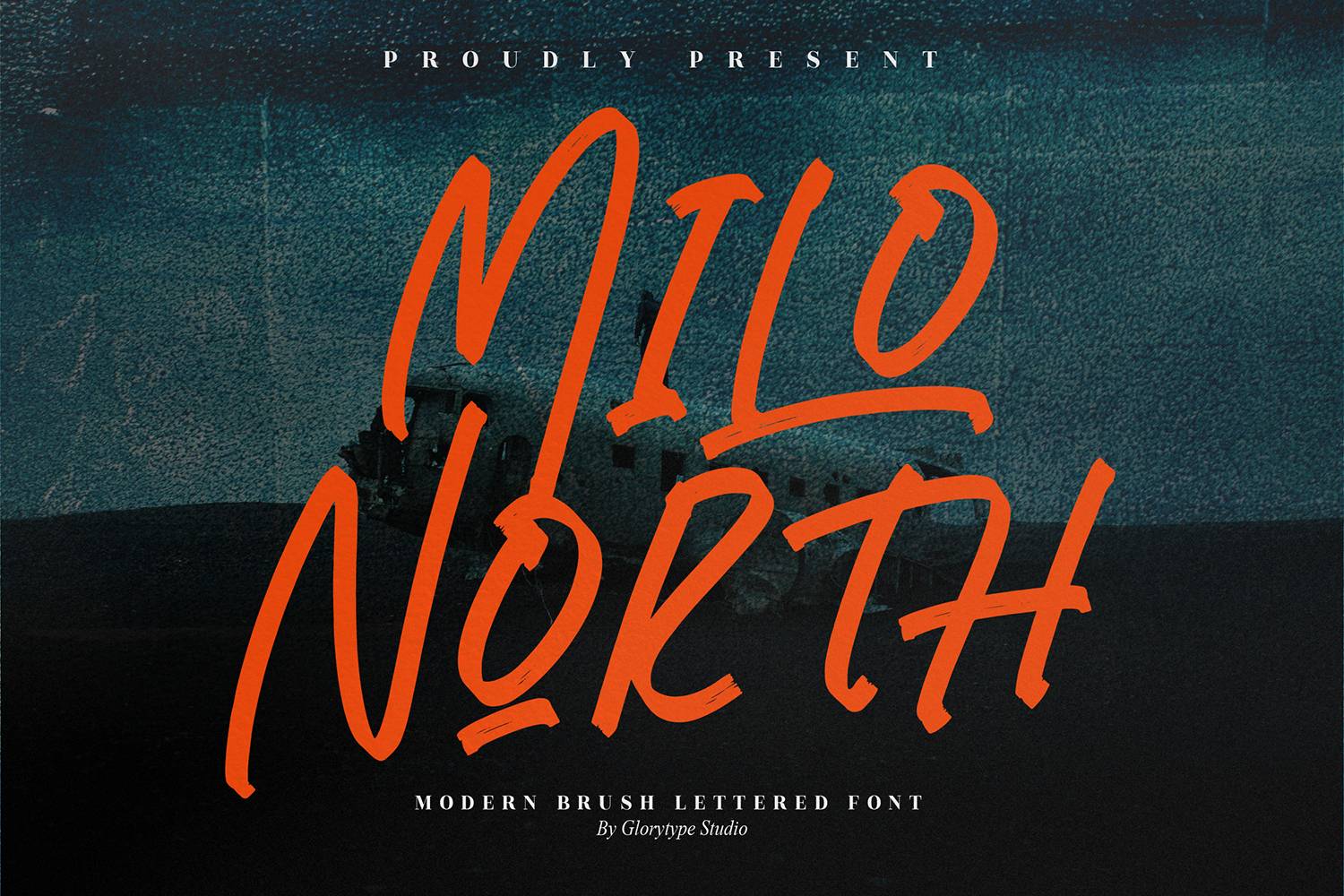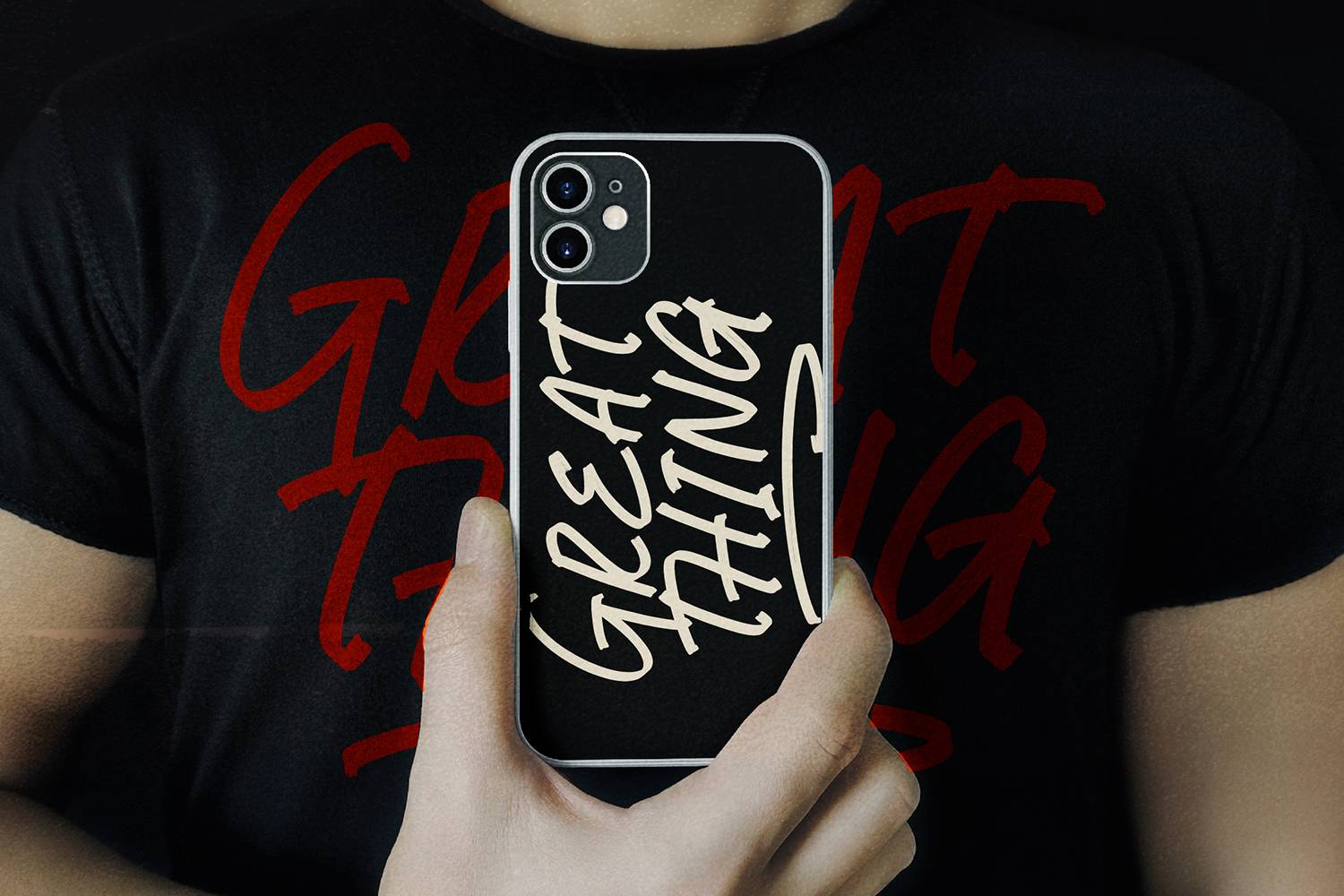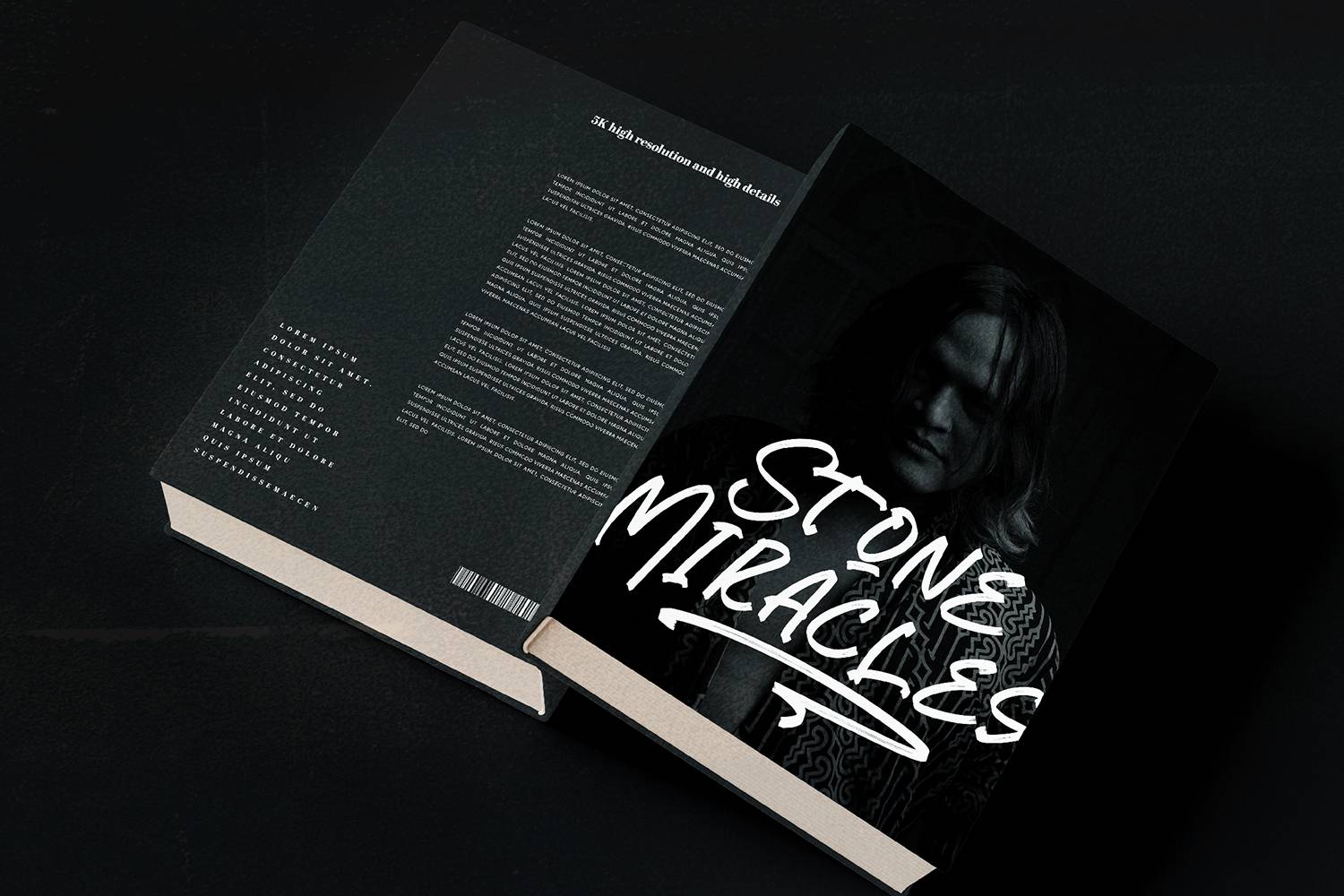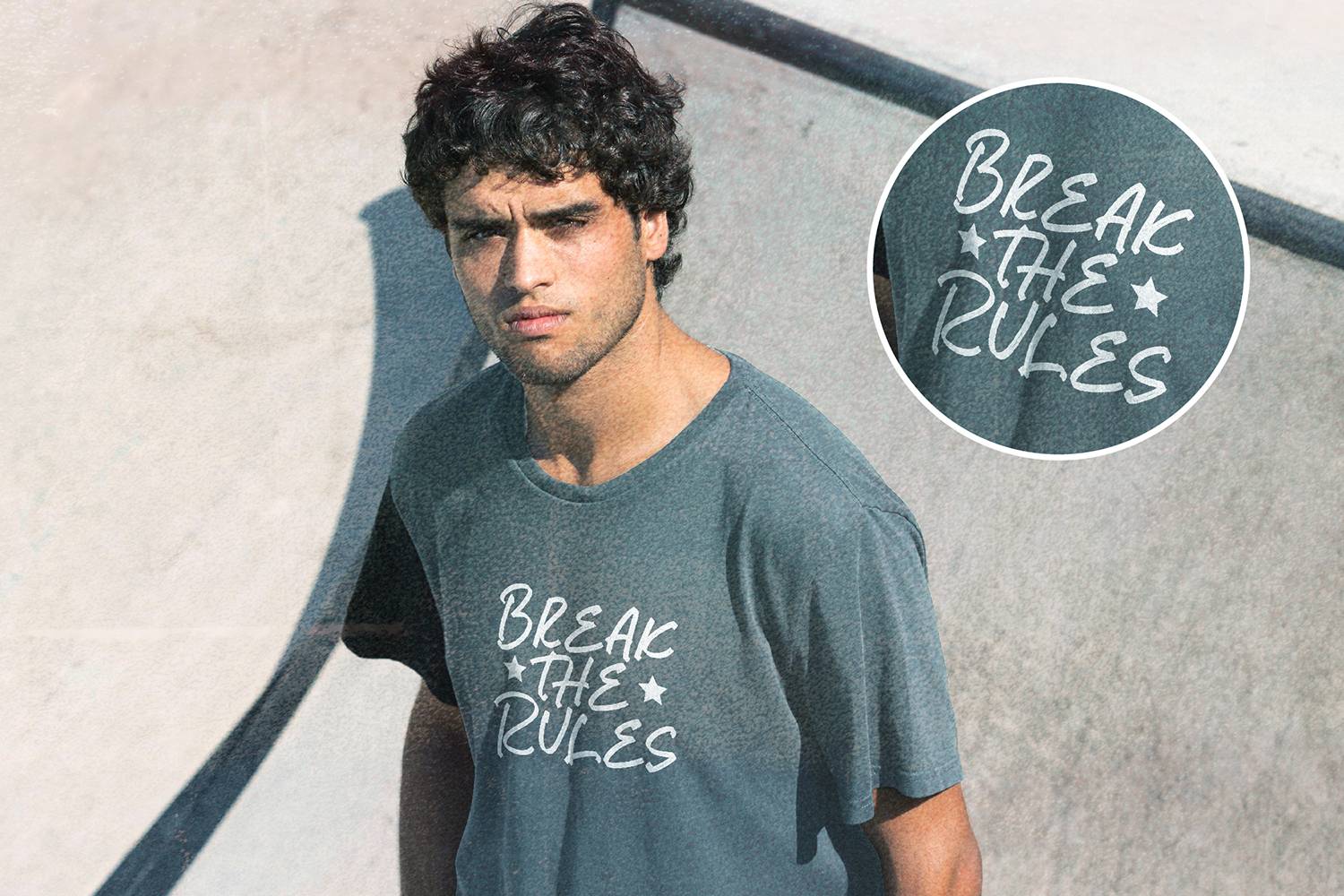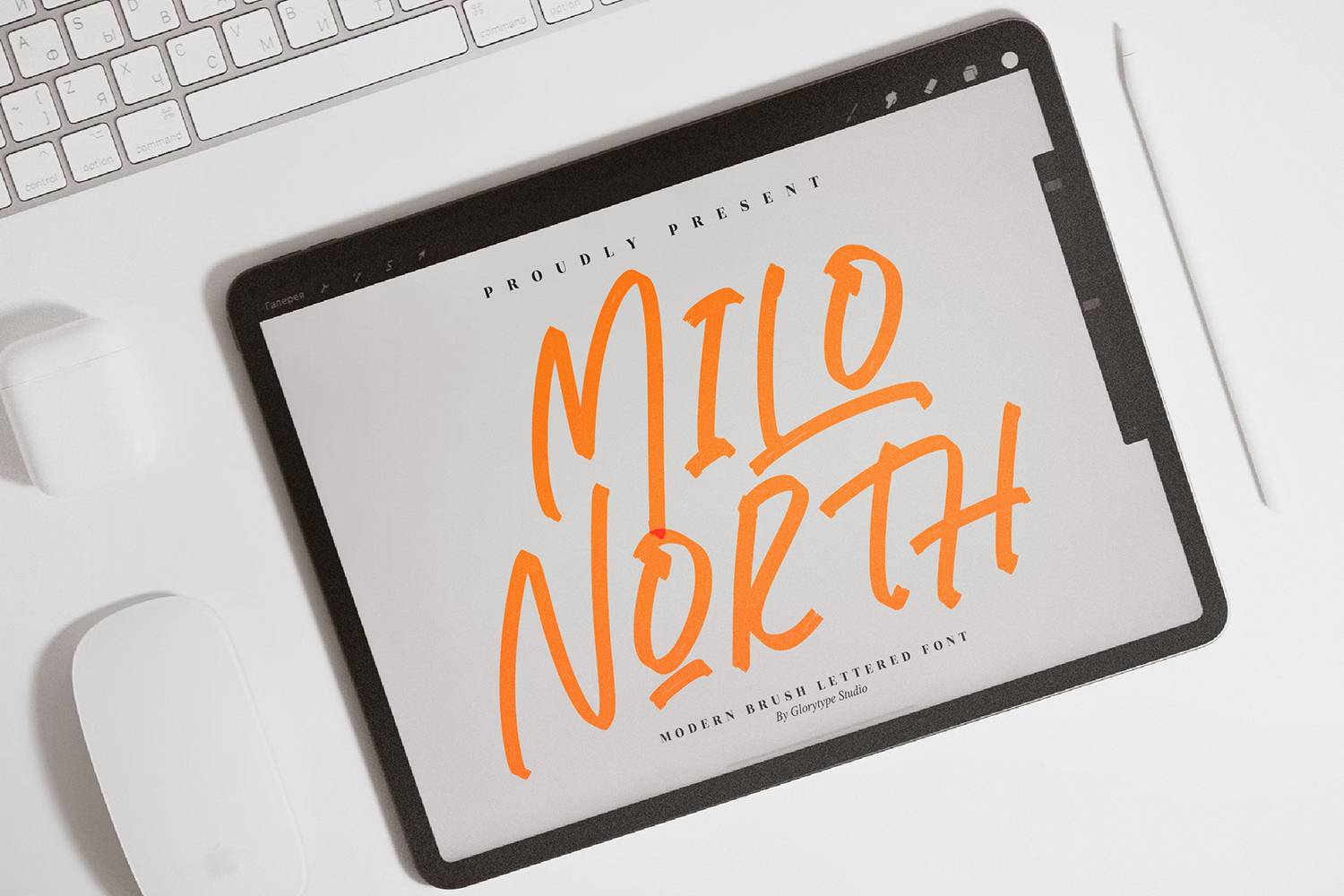
Milo North is a lively, casual script font with a hand-drawn, brush-like appearance that exudes personality and energy. Its irregular strokes and varied letterforms give it a natural, playful feel, making it ideal for creative branding, informal headlines, and projects that want to convey warmth and individuality. This font works well where a relaxed yet expressive touch is needed, such as in lifestyle blogs, posters, and packaging for artisanal or youthful brands.
Milo North Font
About Milo North Font